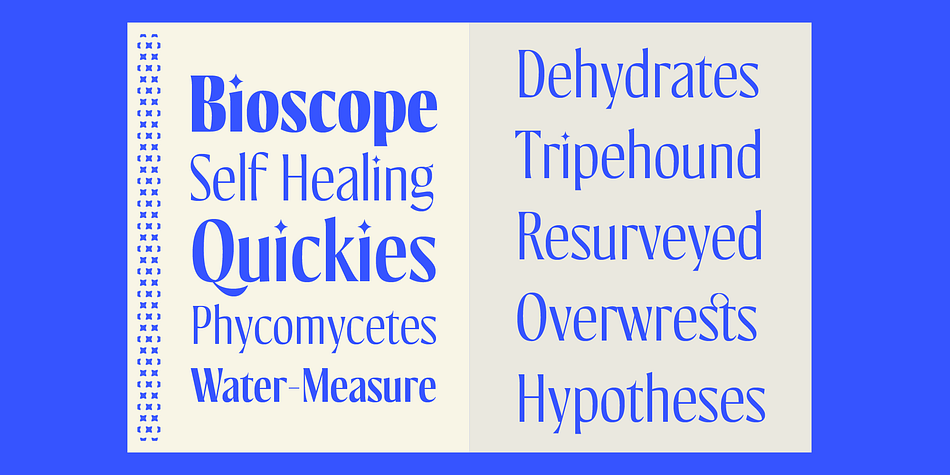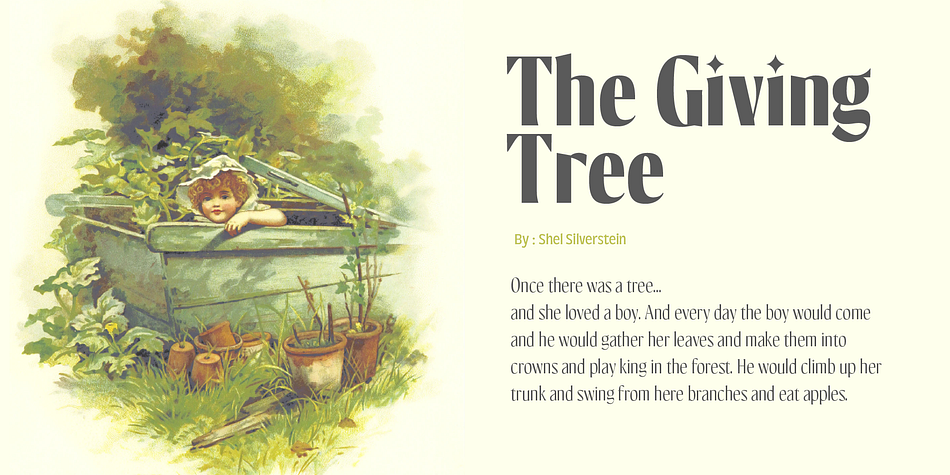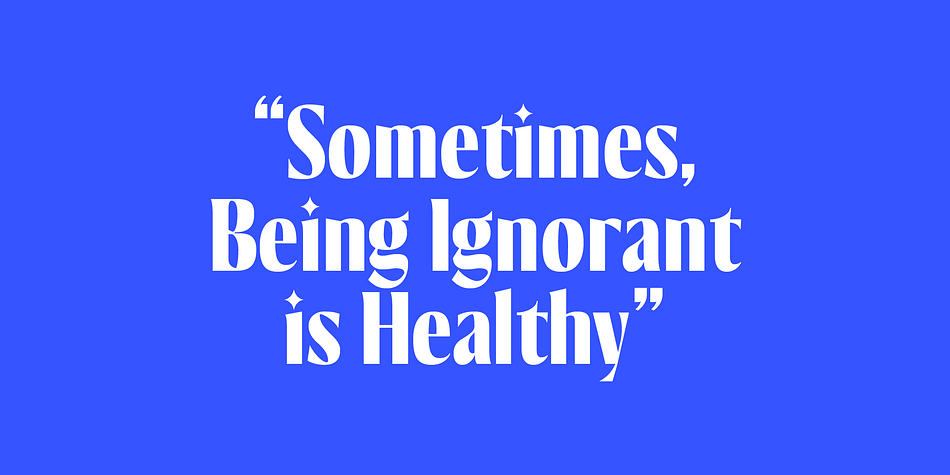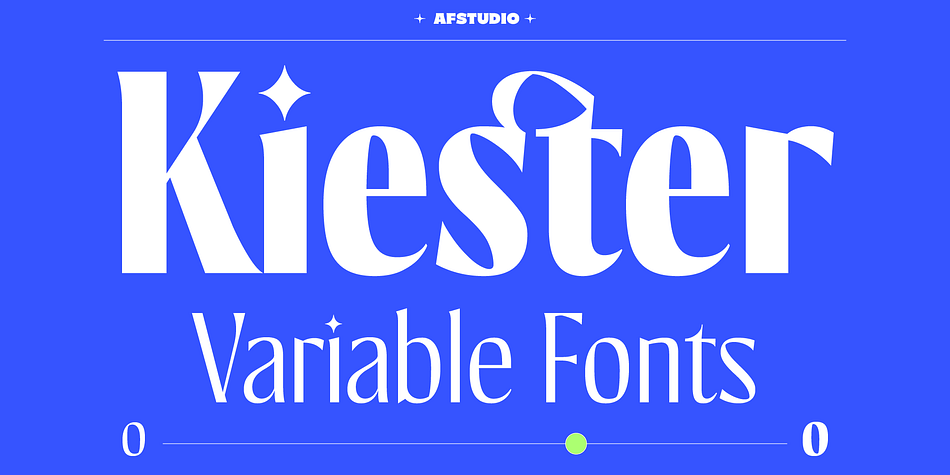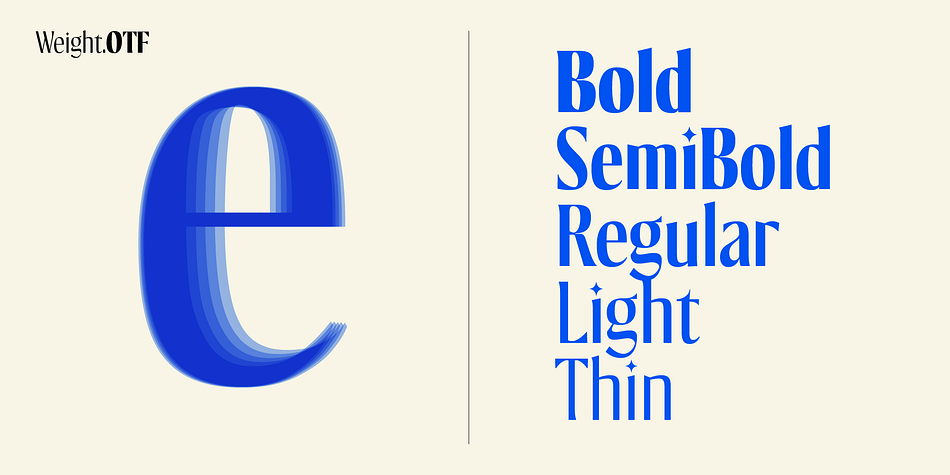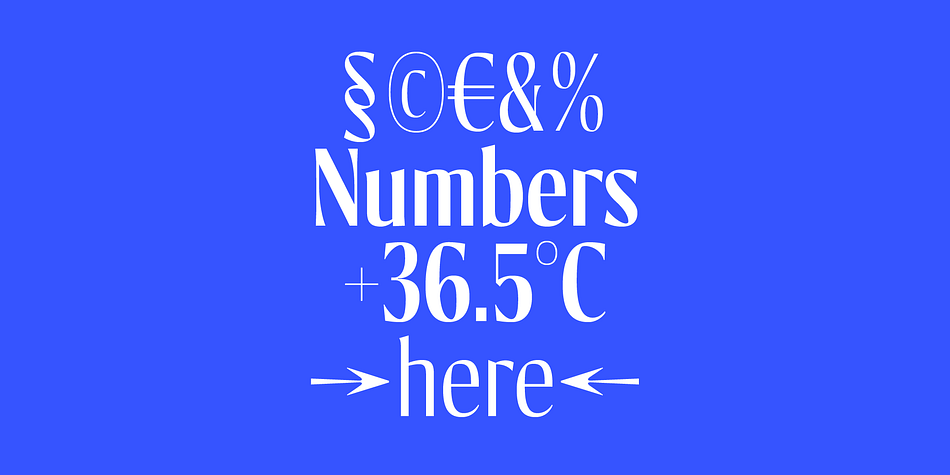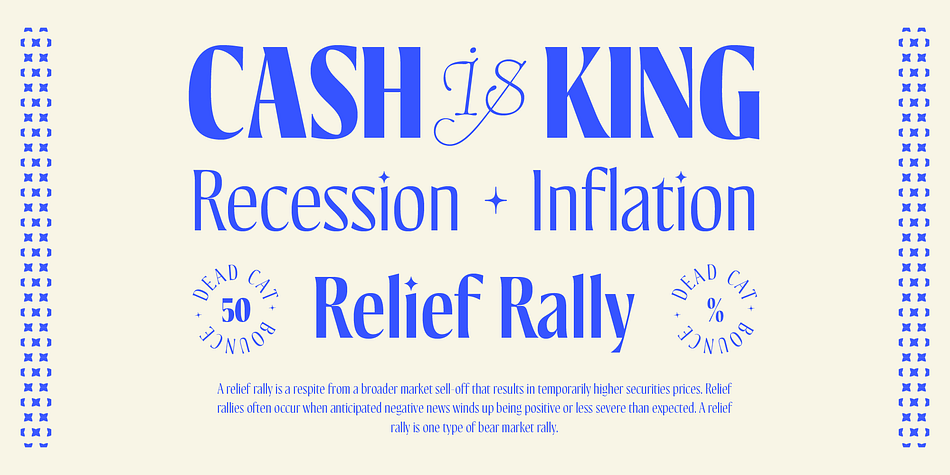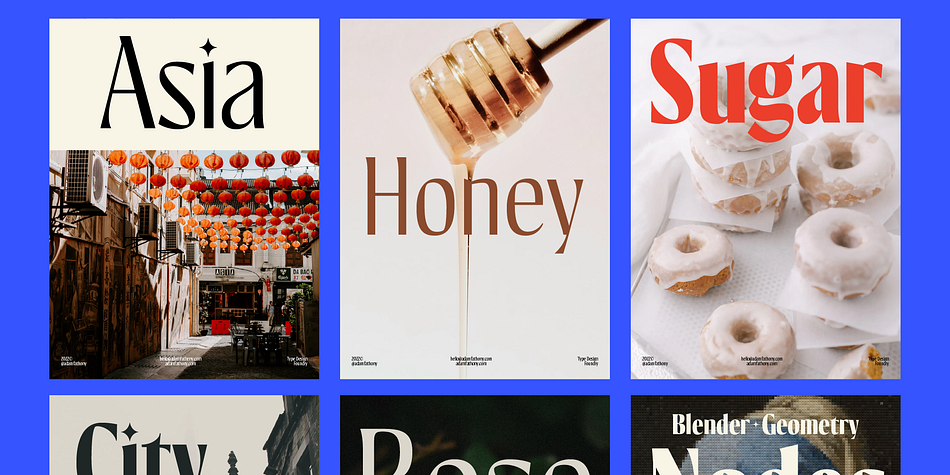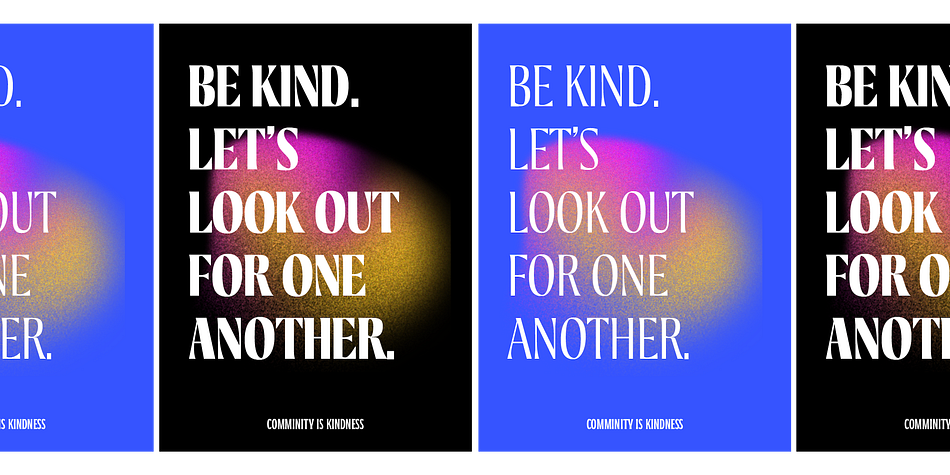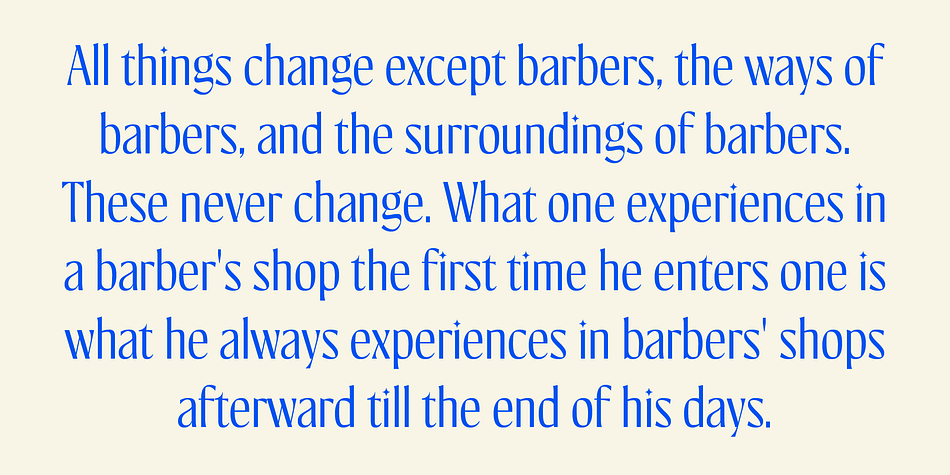
Kiester
Kiester is a display sans font family. This typeface has six styles and was published by AF Studio.
Kiester, A Display Typefaces with Variable Weight.
Kiester is a modern elegant variable font. Basically this is a Sans with a small touch of serif on every letters. A Simplicity yet very legible with various width and weight that you can explore, combine, create and help you designing something such as Poster, Headlines, Logotype, Branding, and etc. In a Total of 5 Style Font on the OTF files or even more if you are using the Single Files Variable, you can slide the weight on the sweetest spot of Kiester.